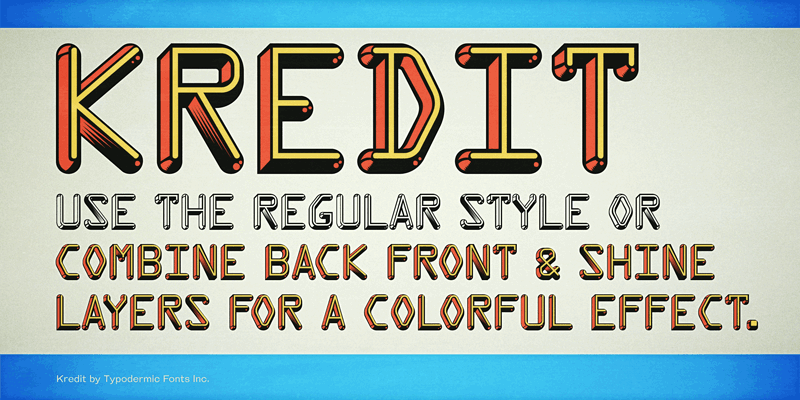
Preview and download Kredit Font. Created by Typodermic Fonts in Techno Various styles with 100% Free license.
Kredit is an OCR-A imbued credit card font. Use the transparent regular style or stack the back, front & shine layers. These fonts include a license that allows free commercial use: sometimes referred to as a desktop license. This allows you to install the fonts on a computer and use them to create posters, web graphics, game graphics, t-shirts, videos, signs, logos and more. Read the license agreement for details. If you'd like to embed these fonts in an app, ebook, on the web or anything that's not covered by the desktop license agreement, visit the link below. You'll find distributors who offer different types of licenses or you can contact me for help. http://typodermicfonts.com/kredit/ |